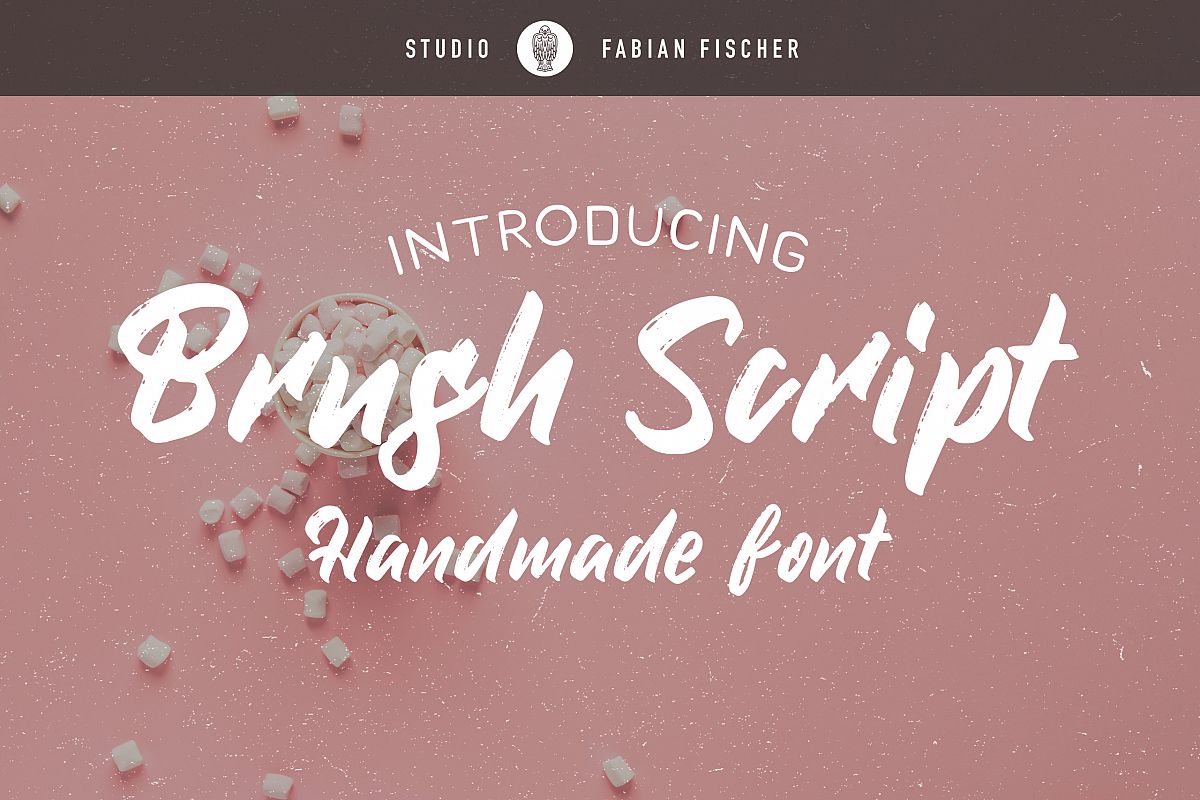
Brush Script - Handmade font
Brush Script is a handmade brush font designed with a crayon brush pen. This typeface includes all uppercase and lowercase letters, numbers and special characters. It works great for both modern and vintage style projects. For commercial usage this font would be very pleasant. Great for getting that handcrafted look you've been looking for!